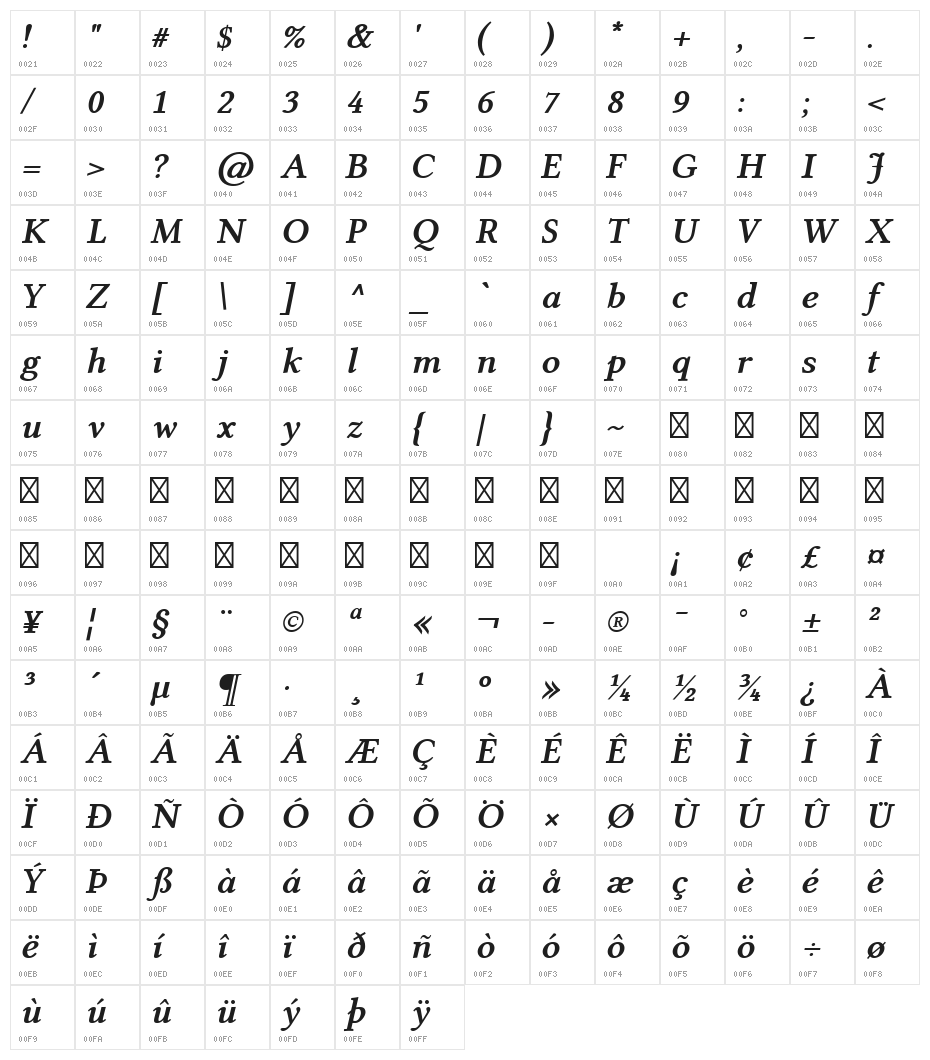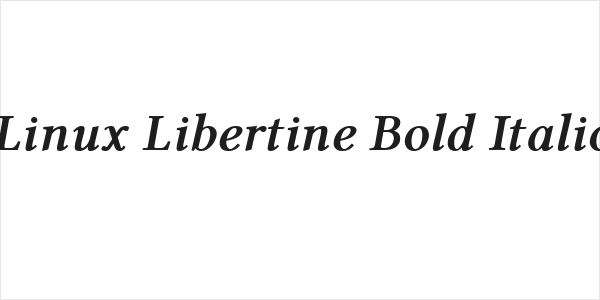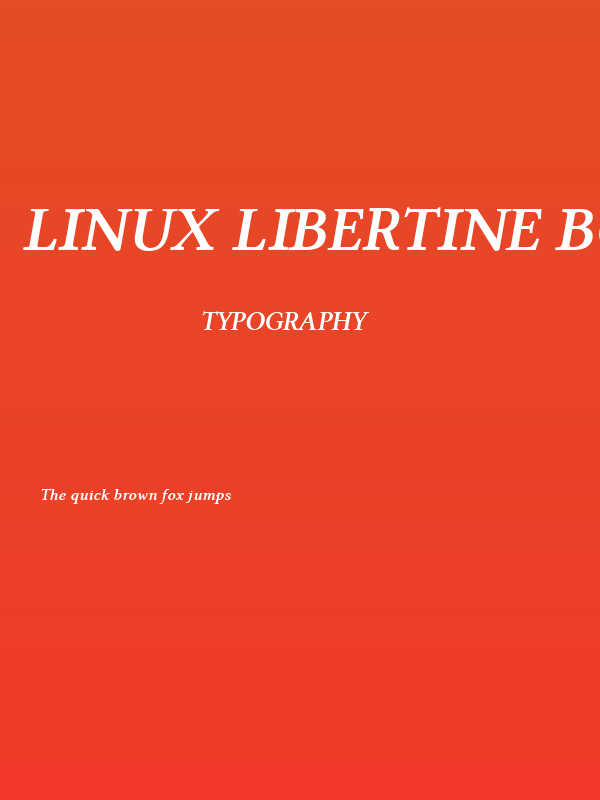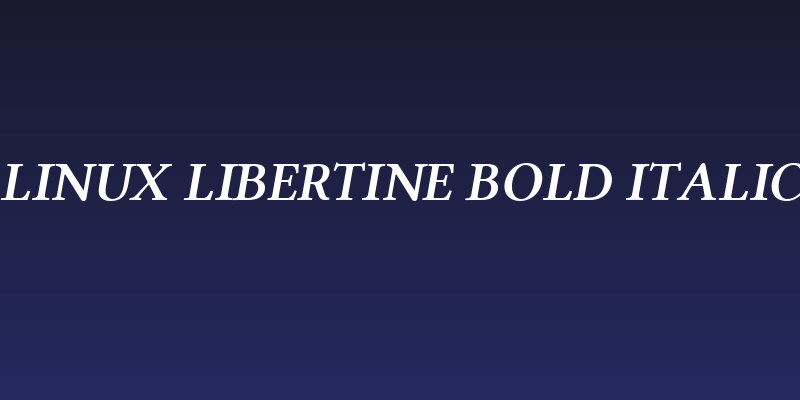
Linux Libertine Bold Italic Font
Linux Libertine Bold Italic Description
This font features a classic serif design with elegant curves and a sophisticated italic slant. The bold weight adds a strong presence, making it suitable for impactful text. The characters are well-defined with moderate contrast between thick and thin strokes, enhancing readability while maintaining a refined aesthetic. The serifs are pronounced, contributing to a traditional yet versatile appearance. The italic style gives it a dynamic and flowing quality, ideal for emphasizing text. Overall, this font balances traditional serif elements with a modern twist, making it suitable for a variety of applications.
| Proposed Projects | Ideal for book covers, editorial design, formal invitations, and branding projects that require a classic yet modern touch. |